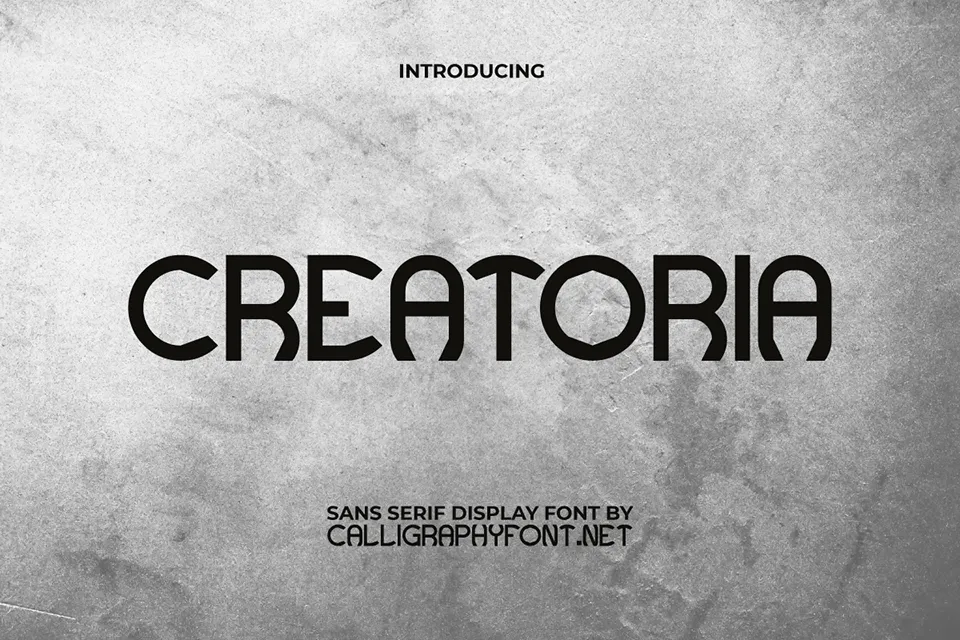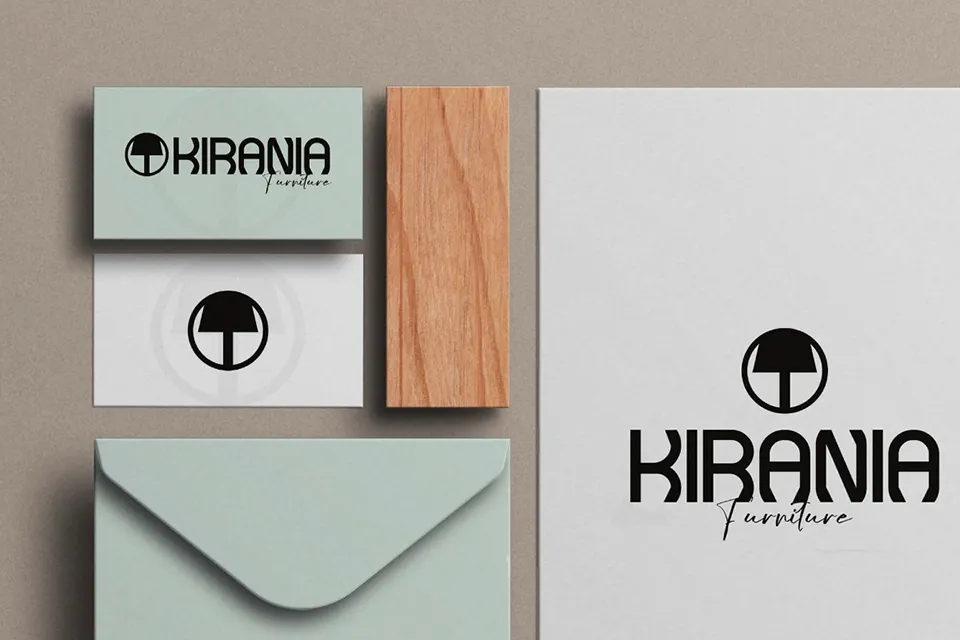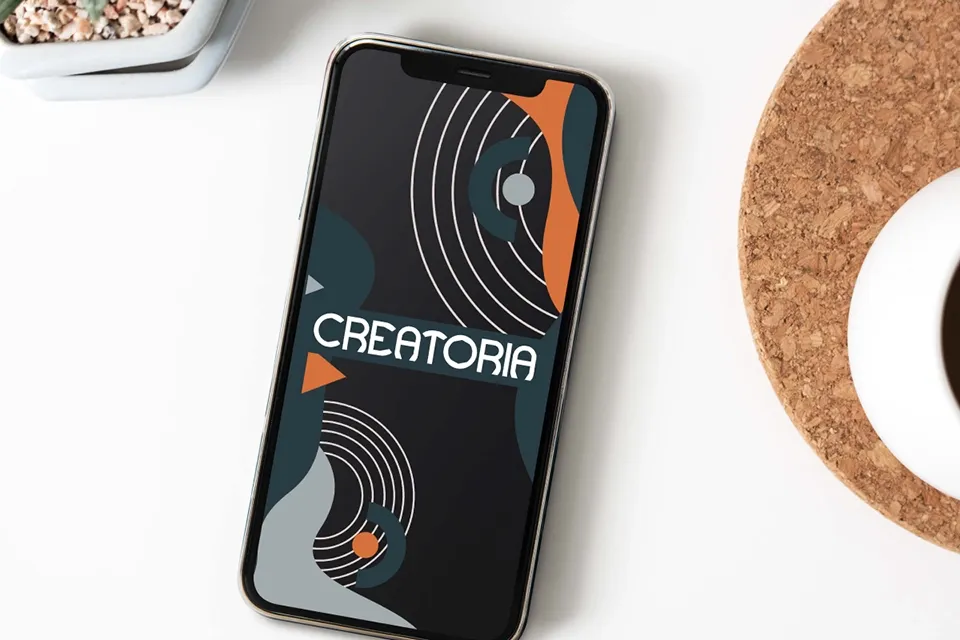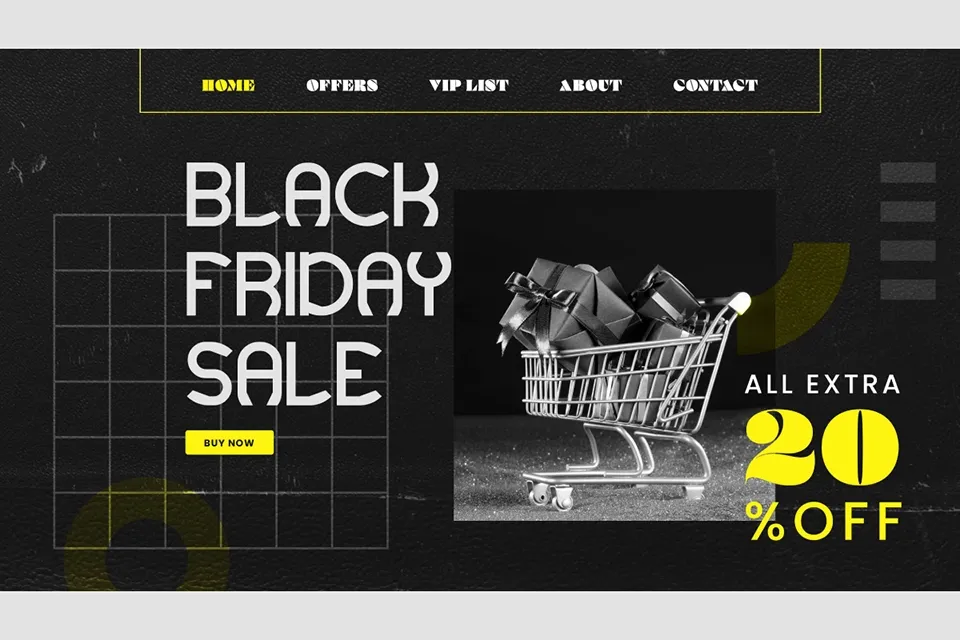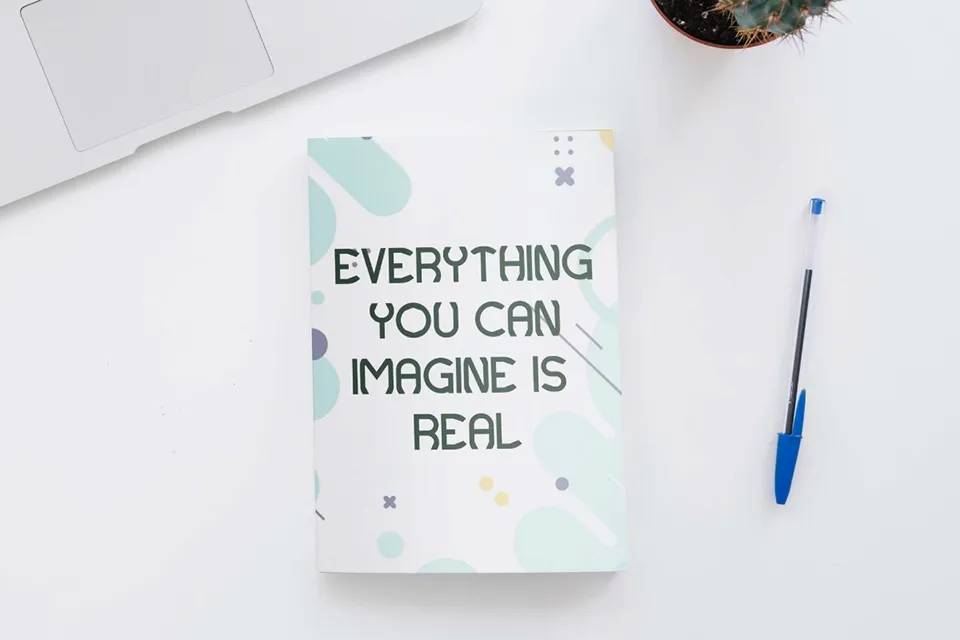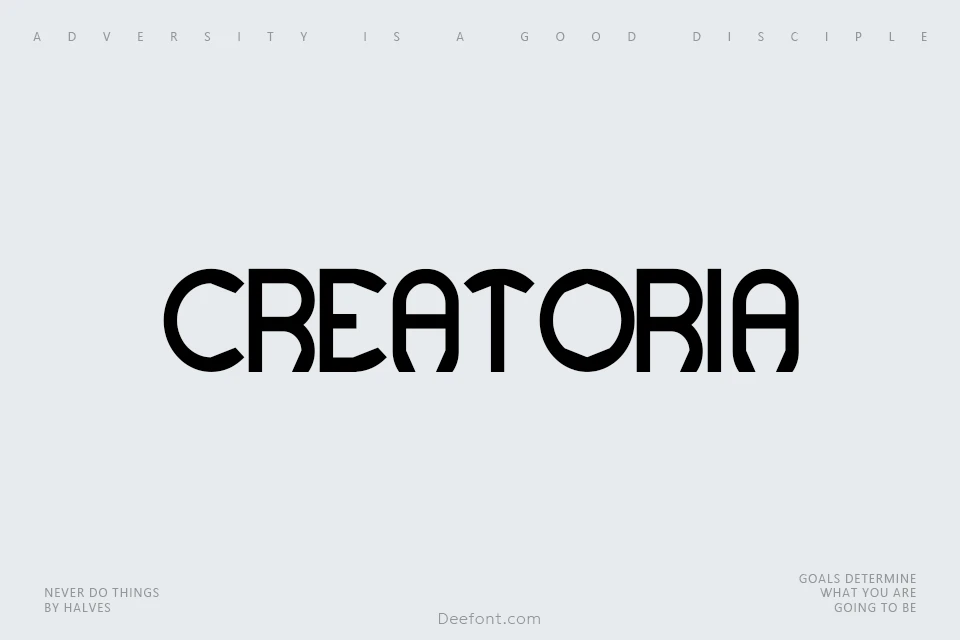
Creatoria Font
Creatoria Font is a bold and modern sans-serif typeface designed to make a striking visual impact. With its geometric shapes and unique letterforms, this font exudes creativity and sophistication, making it ideal for branding, headlines, logos, posters, and display designs. The sharp angles and clean lines give Creatoria a futuristic and stylish aesthetic, perfect for projects that demand a contemporary edge. Its versatility ensures excellent readability while maintaining a distinctive personality. Whether used for digital or print mediums, Creatoria Font adds a dynamic and professional touch to any design, helping your text stand out with elegance and innovation.